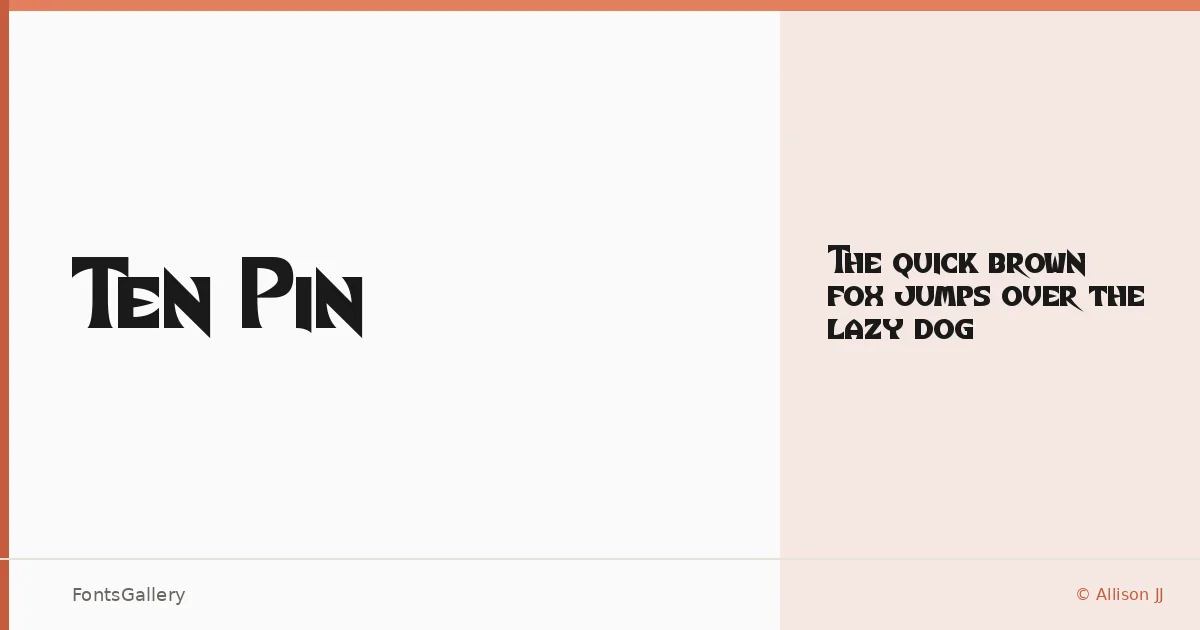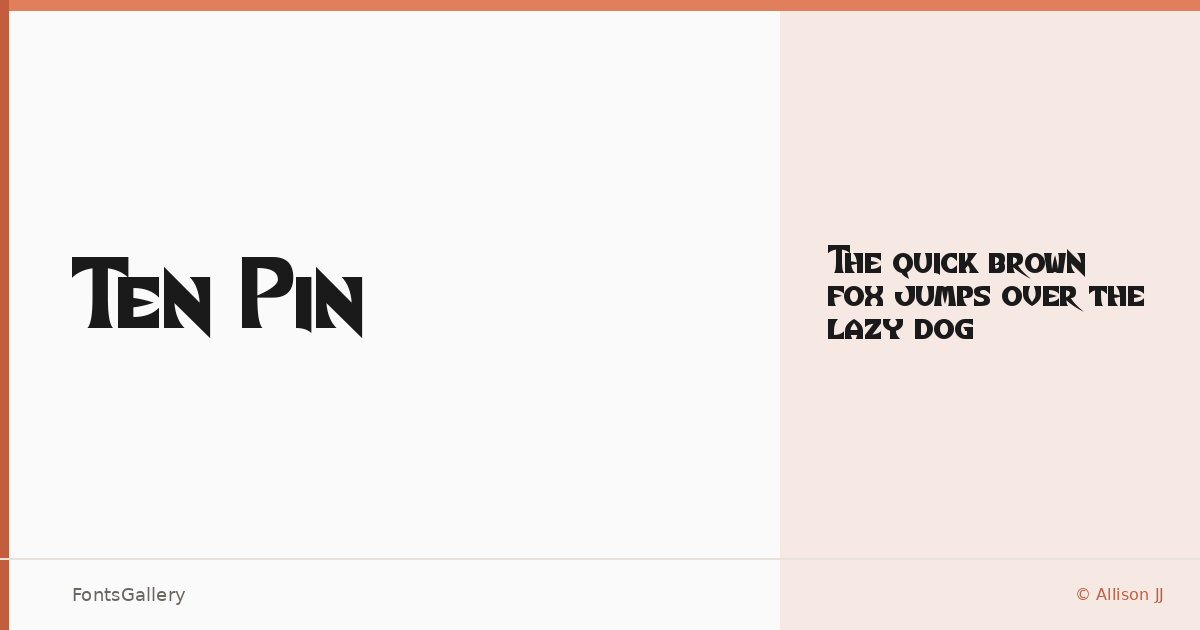
About Ten Pin Font
There is a deliberate heaviness to these letterforms — the kind that calls to mind hand-painted signage, bowling alley marquees, and the graphic confidence of mid-century Americana. Ten Pin is a display typeface designed by Allison JJ for Chequered Ink, available as a single Regular cut in OTF format.
The face sits firmly in the bold, rustic, vintage corner of display type — built for impact rather than extended reading. Its classic character makes it well-suited to headlines and logotypes where you want weight with personality, not just weight. The single Regular style keeps things focused: this is a face with one strong voice, and it delivers it without hedging.
It earns its keep on posters, T-shirt graphics, branding lockups, and logo work where a vintage or retro tone is the point. For contrast, it pairs well with the clean neutrality of Helvetica or Aileron, while Canela brings an elegant editorial tension against its ruggedness — Abrade and Anglecia Pro are worth trying when the project calls for something with a little more character on the secondary level.